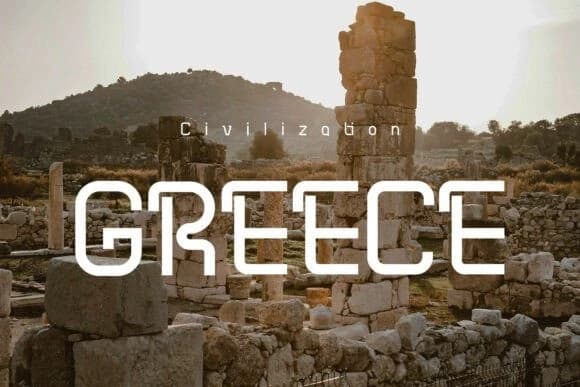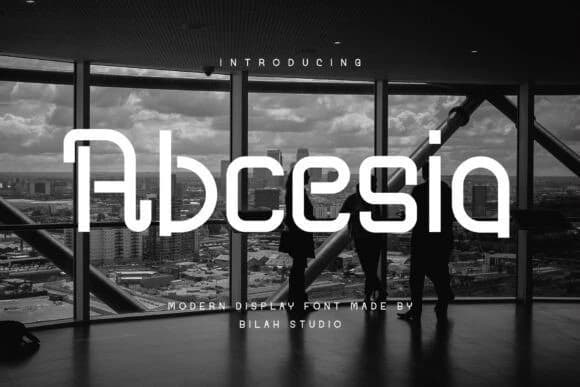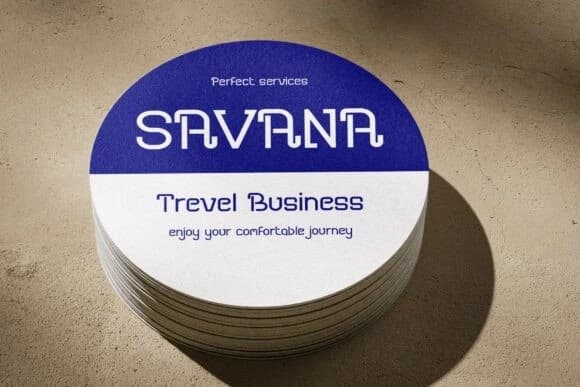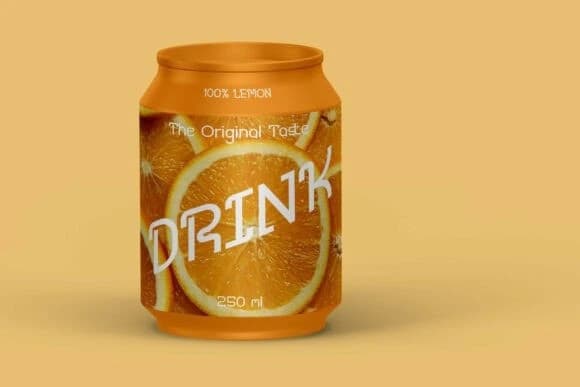
Abcesia Font is a vintage-inspired font inspired by the moods of the past, with geometric details and deeply rooted in medieval writing principles. Abcesia is a perfect choice for any creative endeavor, elegant lifestyle design, such as education